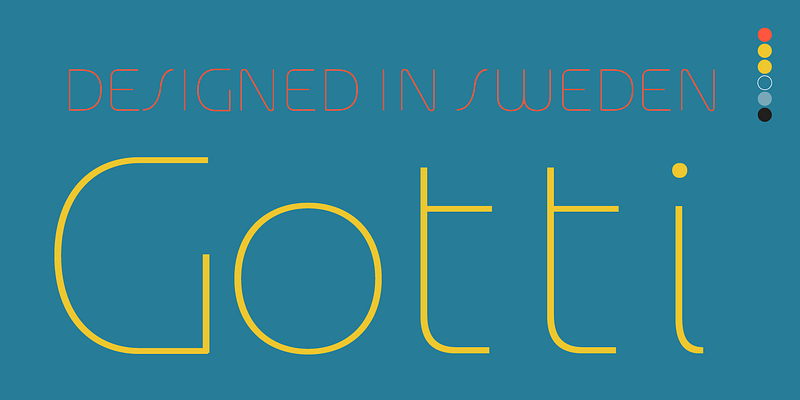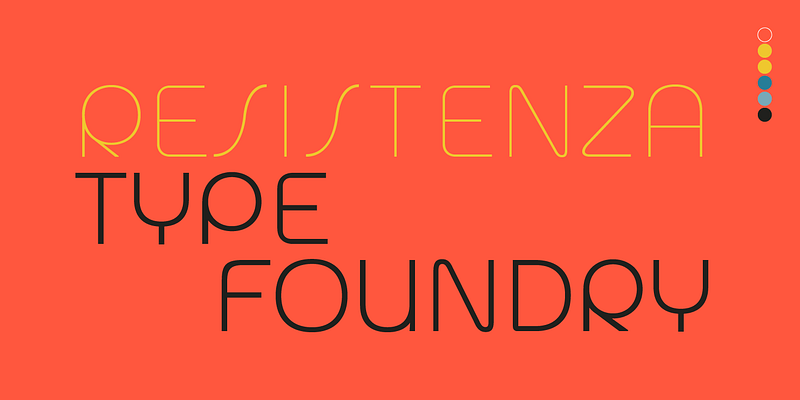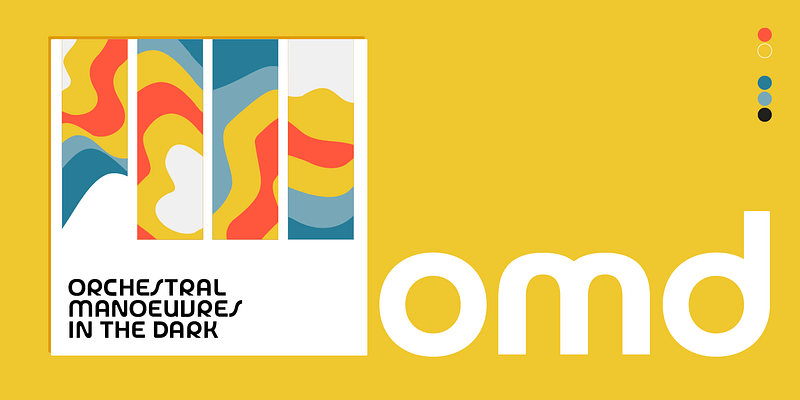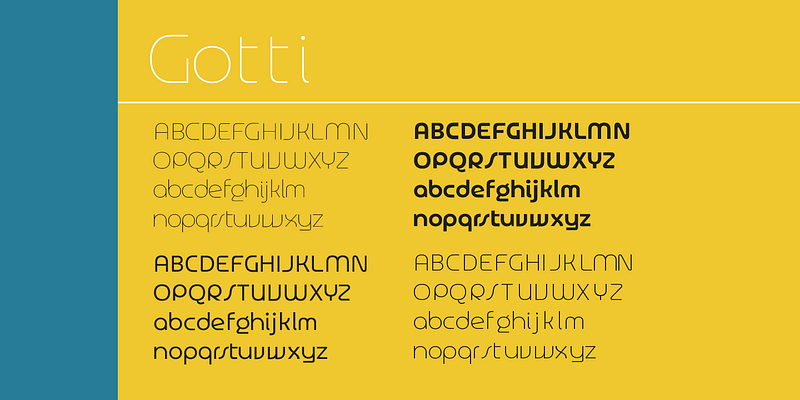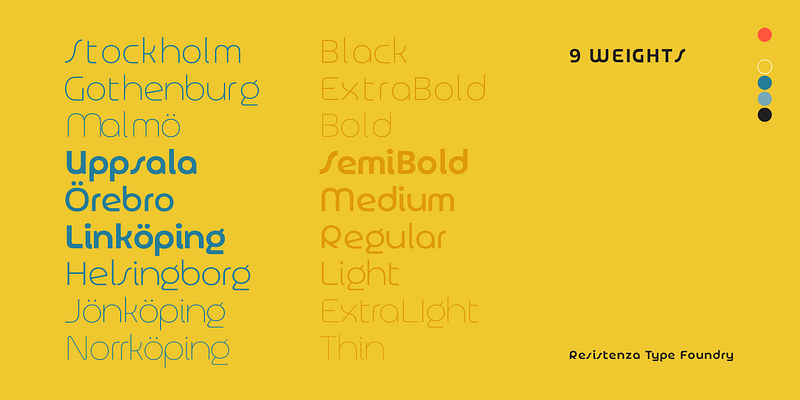
Gotti seamlessly merges Bauhaus geometry with Seventies energy, delivering a font experience that’s visually captivating and functionally versatile. With a range from light to black, Gotti offers precision and expressive potential for diverse
design needs.